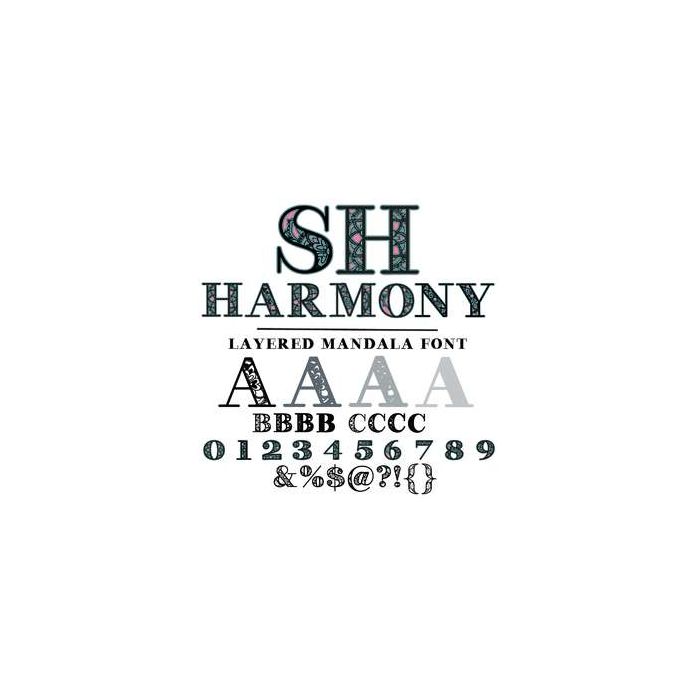
Harmony Layered Mandala Font - With four layers for each letter - assigned to upper and lowercase with alternates, find all options via the character map / glyphs. This font also has numbers and punctuation. Cut and layer each piece to create stunning 3D letters.